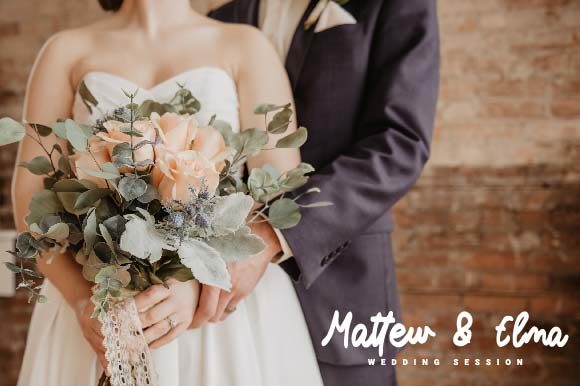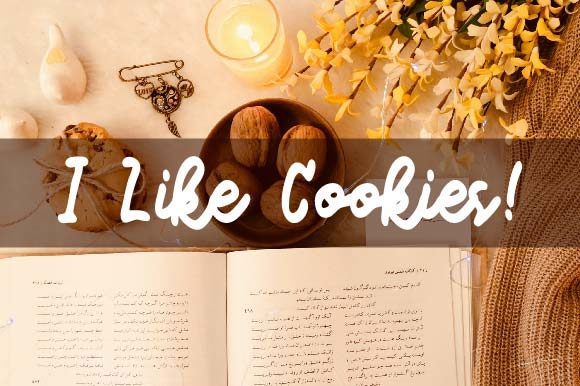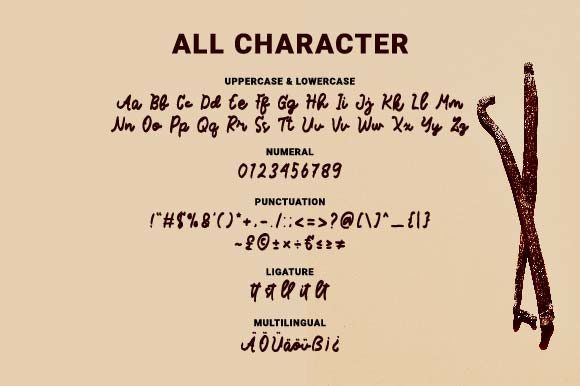
Manillatte Font
About Manillatte Font
Manillatte is a bold and flowing handwritten font that combines elegance with a touch of playfulness. With its clean and distinct letterforms, this font is a perfect fit for a wide range of design projects, including logos, branding, social media graphics, and crafty DIY endeavors.
The bold strokes and fluid lines of Manillatte give it a strong and confident appearance, making it suitable for creating impactful and memorable designs. Whether you’re designing a logo for a modern brand, crafting social media posts, or working on a DIY project, this font adds a unique touch that captures attention.
The versatility of Manillatte allows it to adapt to different design styles and themes. Its clean and legible characters make it easy to read, ensuring that your message is effectively communicated to your audience. The slight quirkiness in its letterforms adds a touch of personality and creativity, making your designs stand out.
Whether you’re creating professional branding materials or adding a personal touch to your craft projects, Manillatte offers a balanced combination of elegance and playfulness. Its flowing and connected letters create a harmonious flow, adding a sense of rhythm and continuity to your designs.
Incorporate Manillatte into your design projects to infuse them with a bold and unique character. From logos and branding materials to social media graphics and DIY crafts, this font will elevate your designs and make them visually engaging. Let the clean lines and playful nature of Manillatte bring a fresh and contemporary feel to your creations.
Explore the versatility of Manillatte and unleash your creativity by incorporating this bold and flowing handwritten font into your next design project.